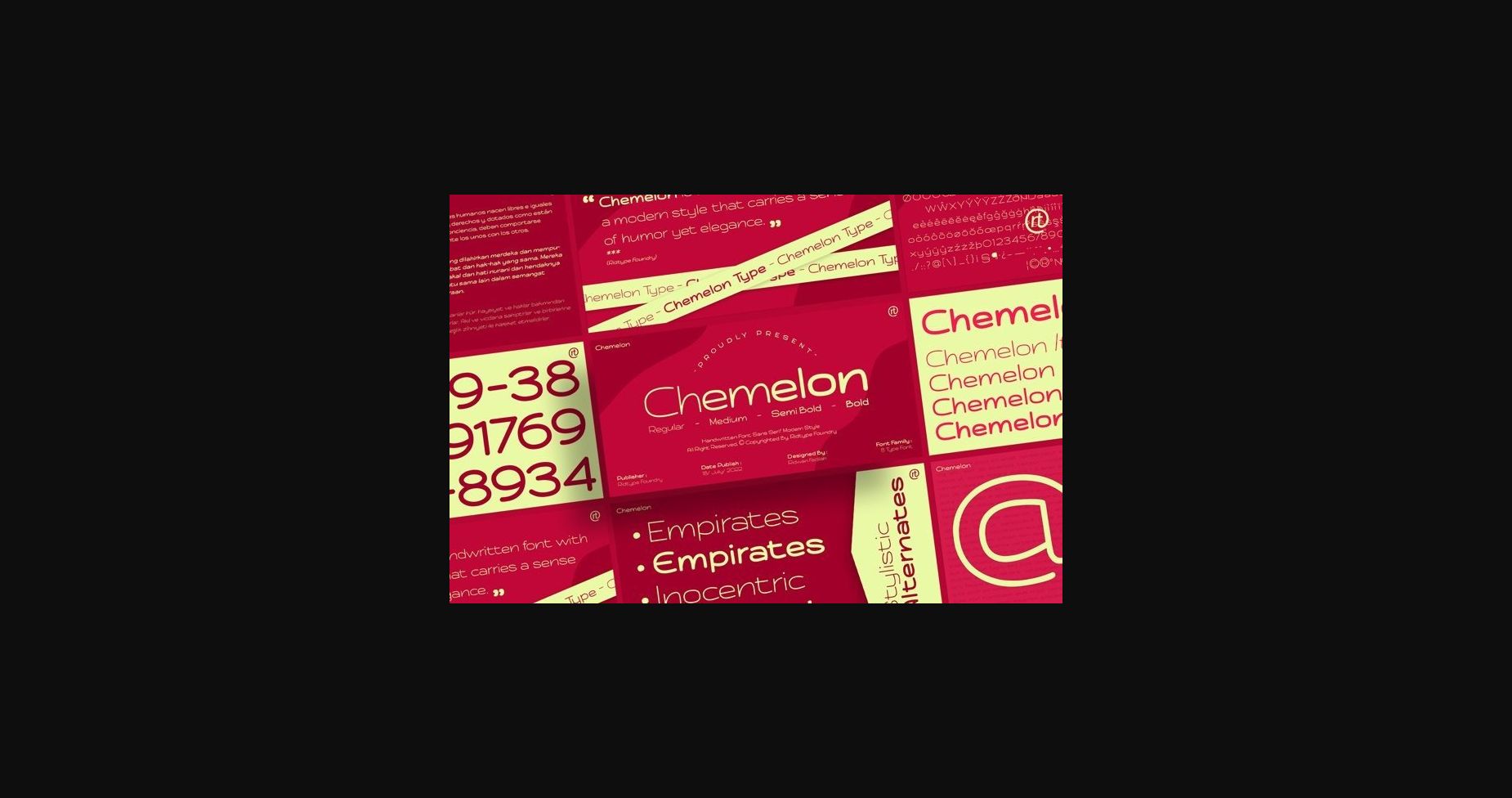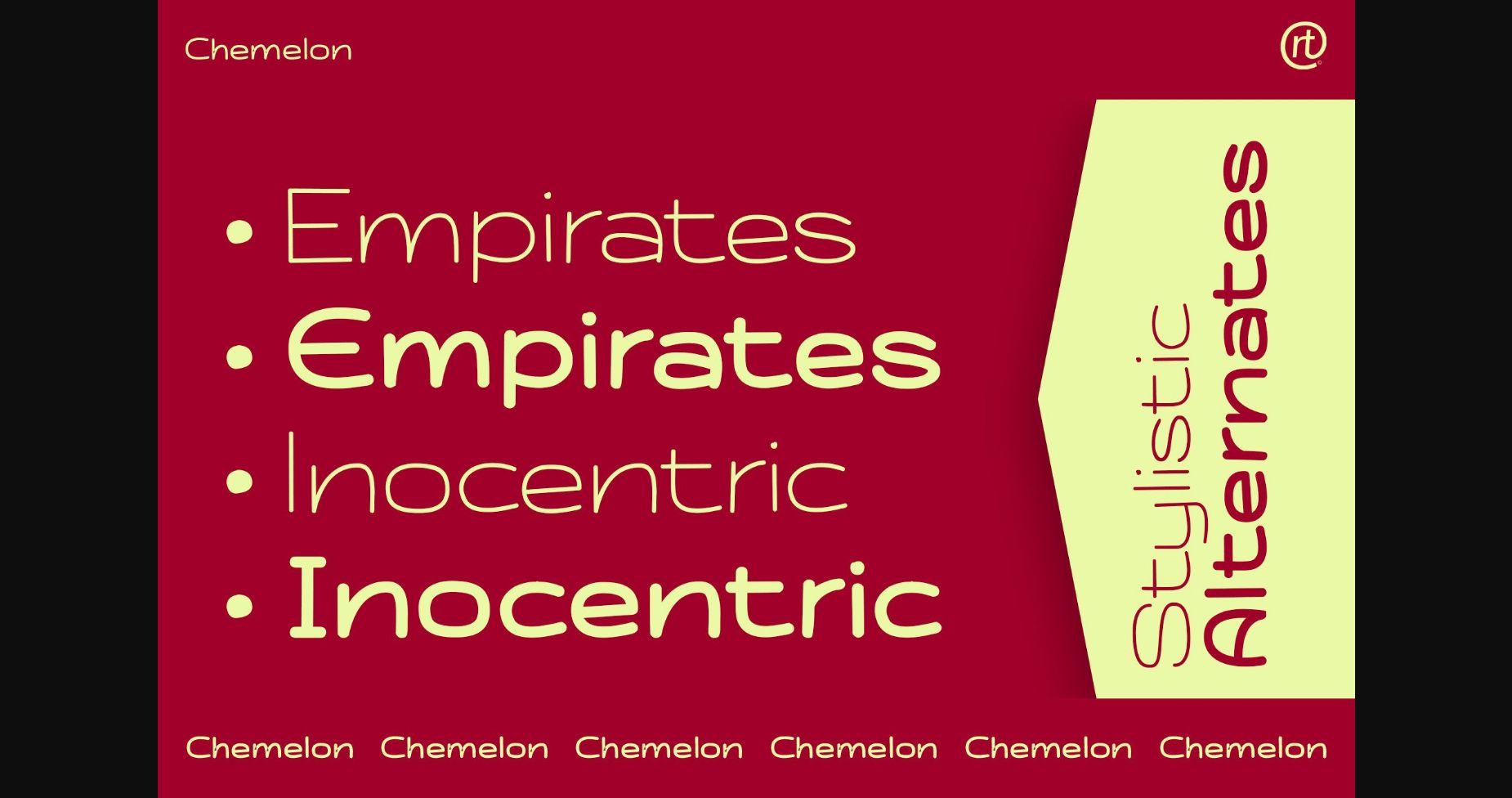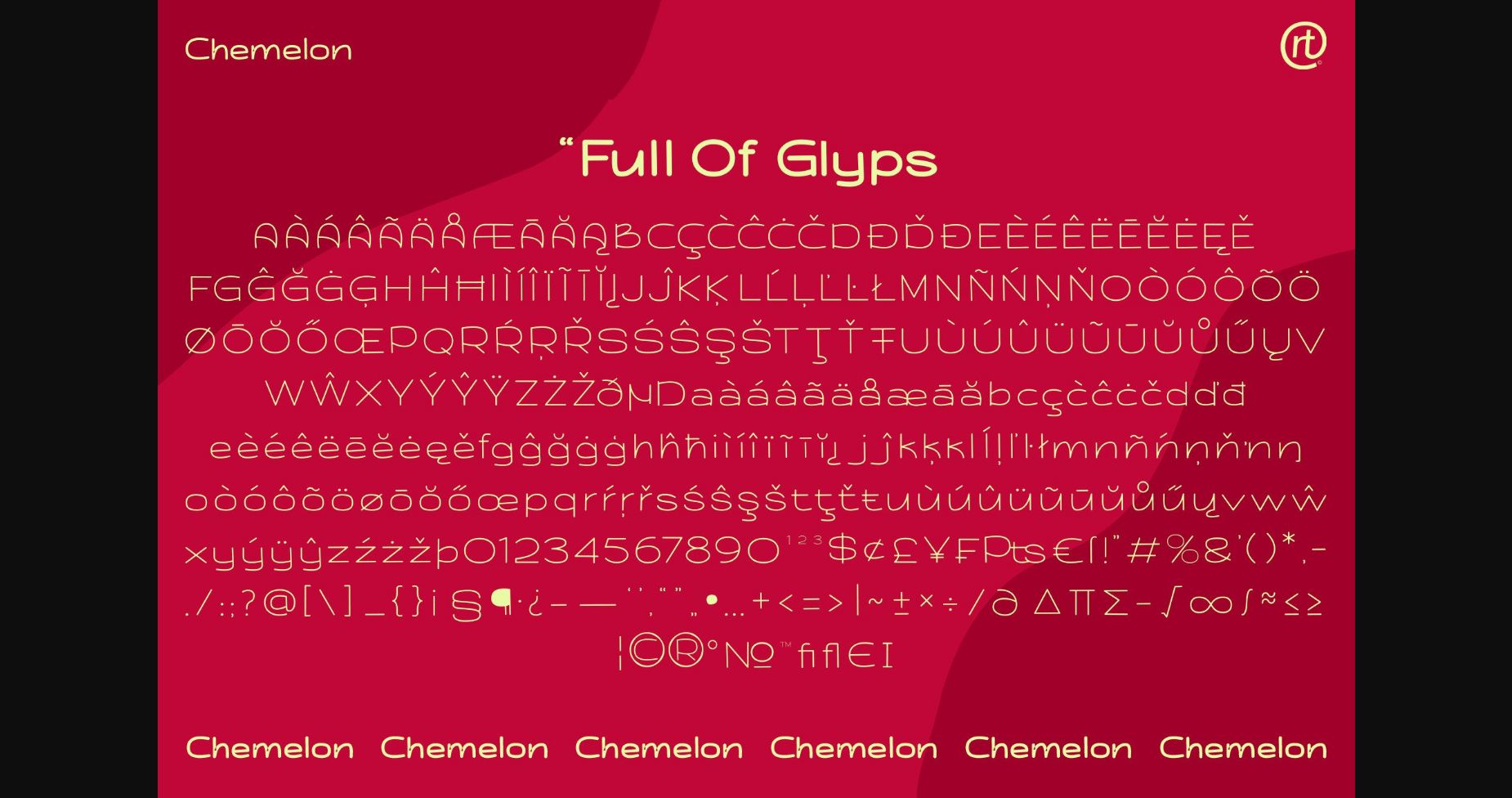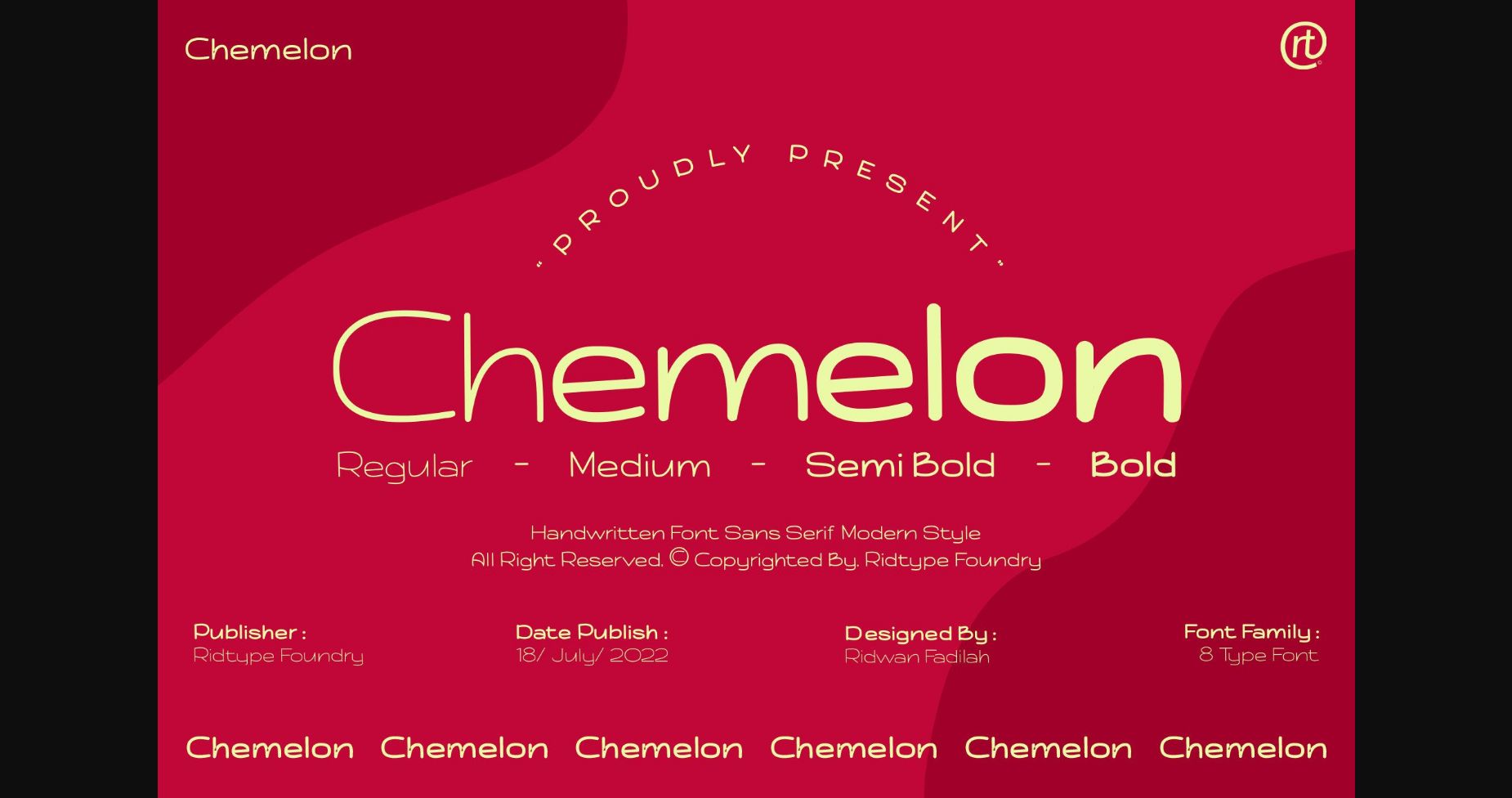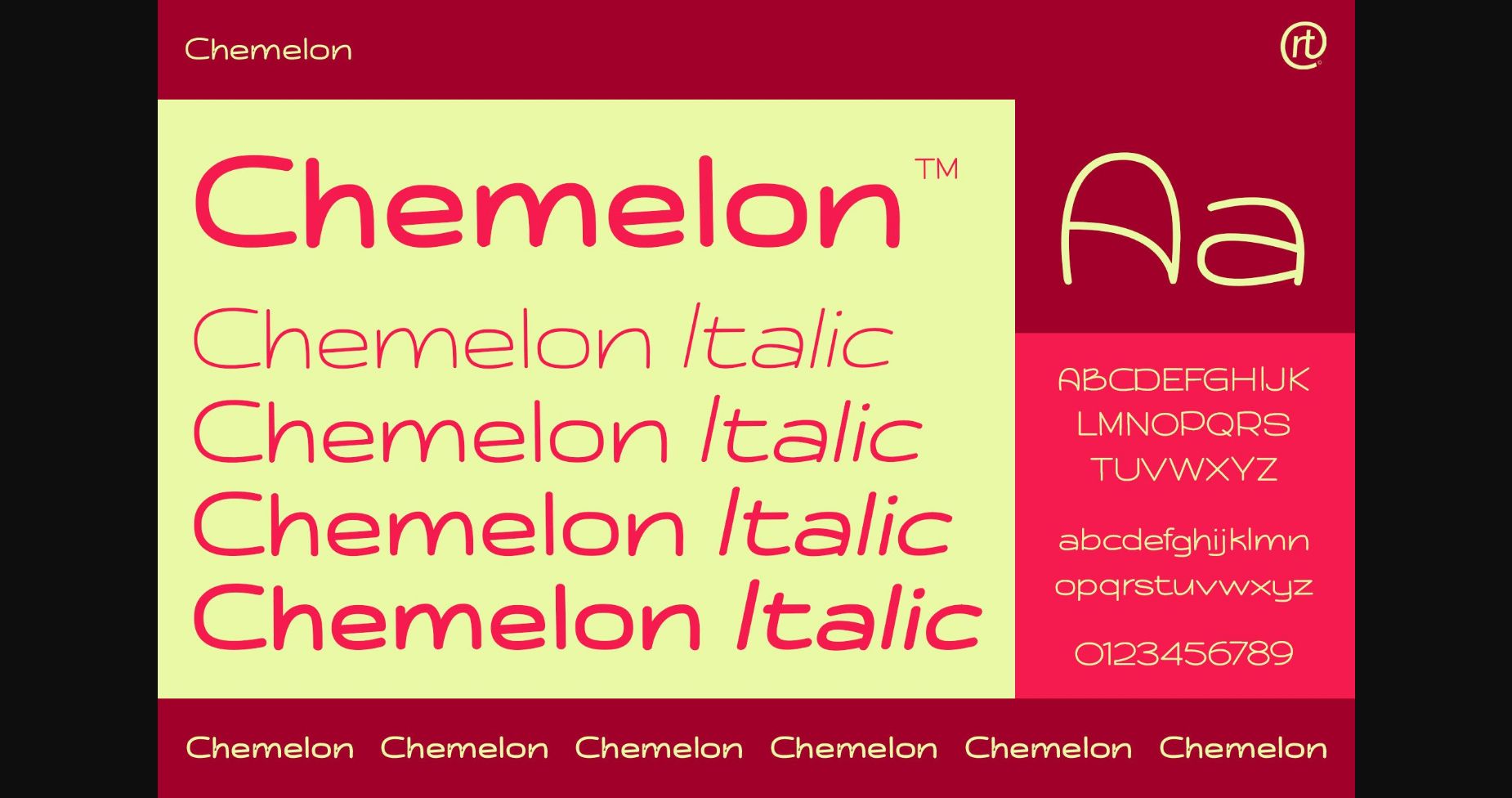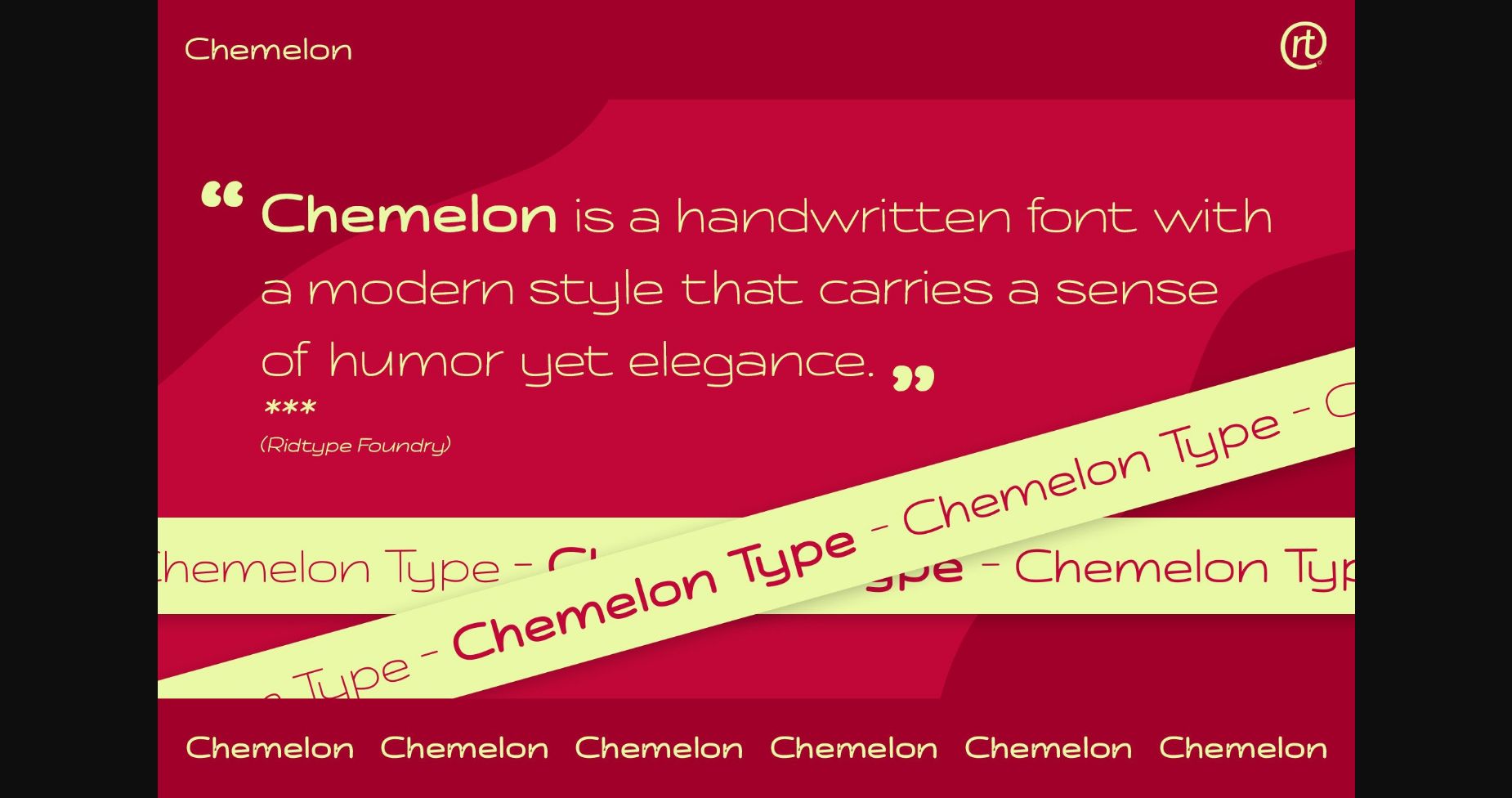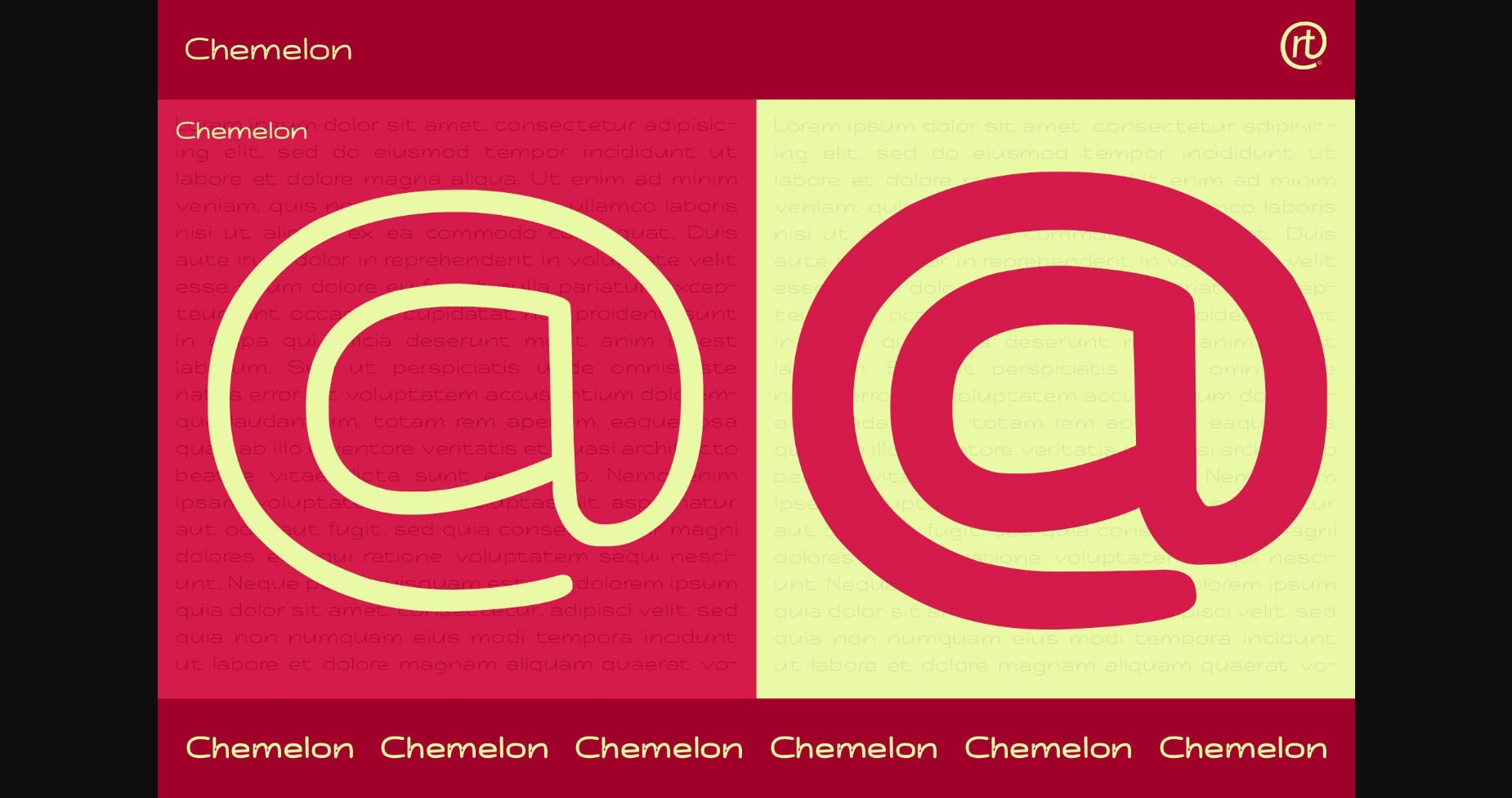
About Chemelon Font
Chemelon is a handwritten font with a modern style that carries a sense of humor but is still elegant.
Perfectly suited for a wide range of applications from branding and logos, to candy and food packages, Chameleon is a bright and fun typeface with a unique appearance.